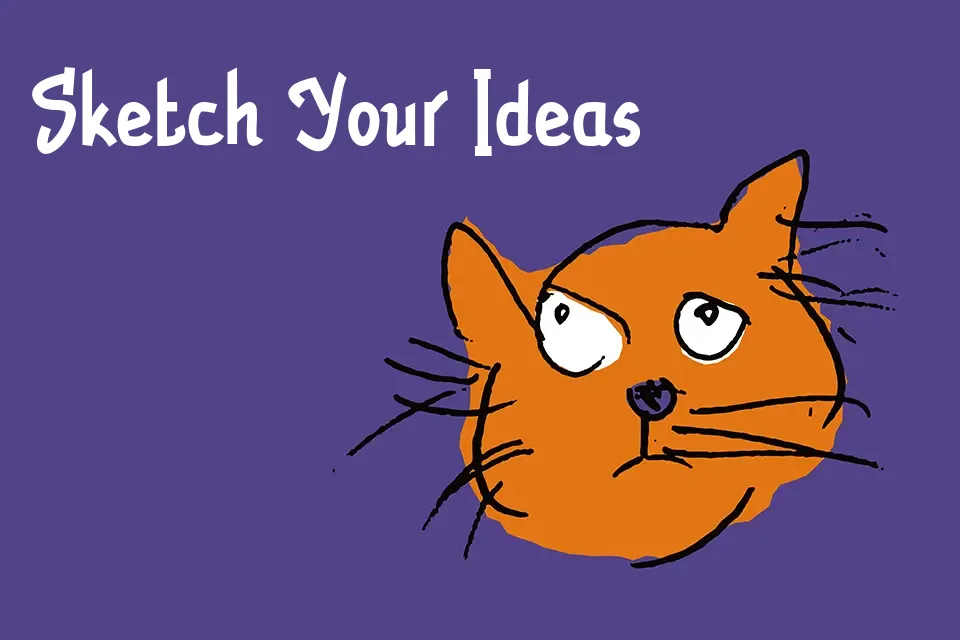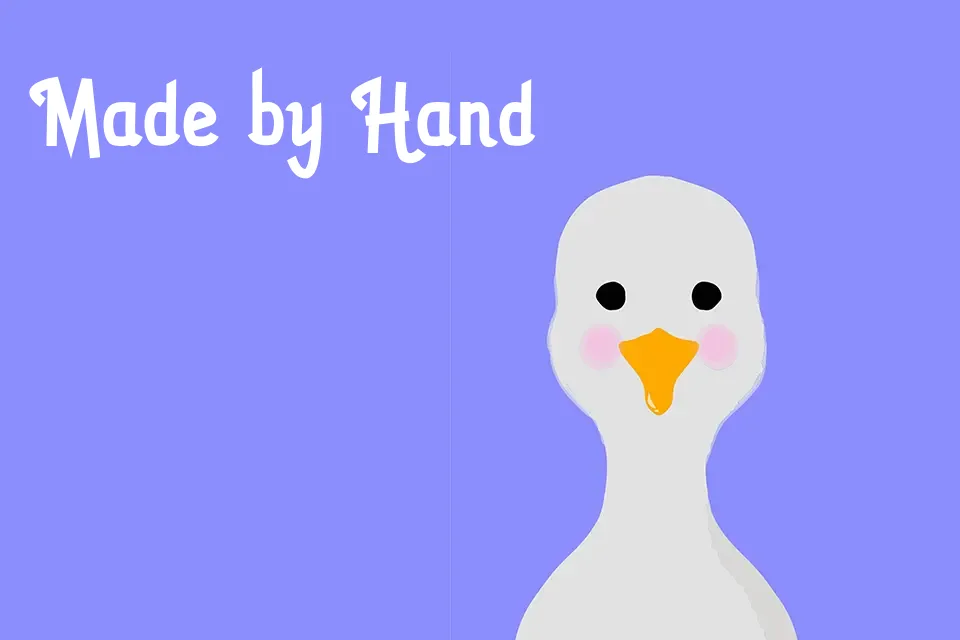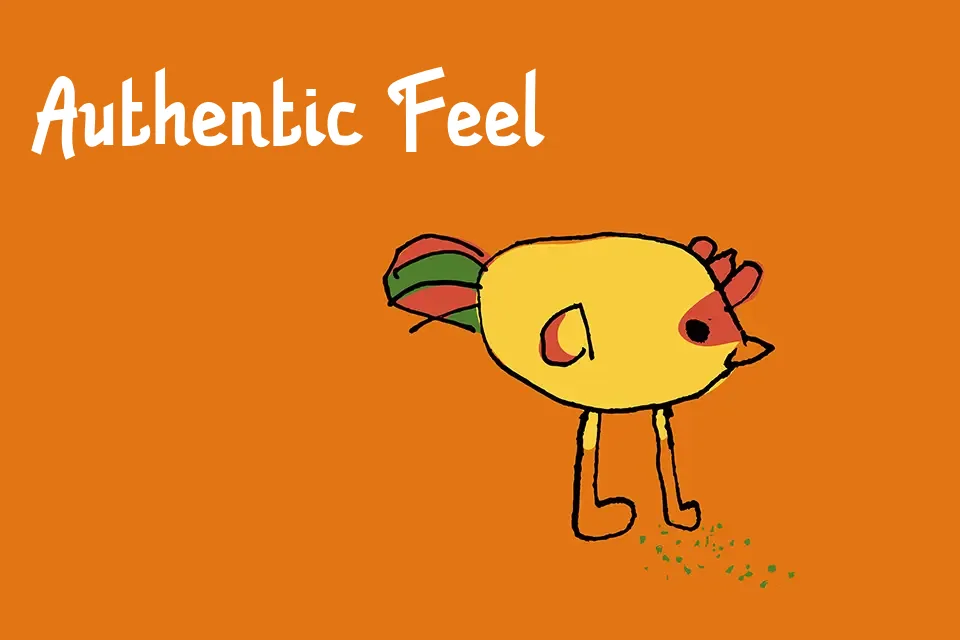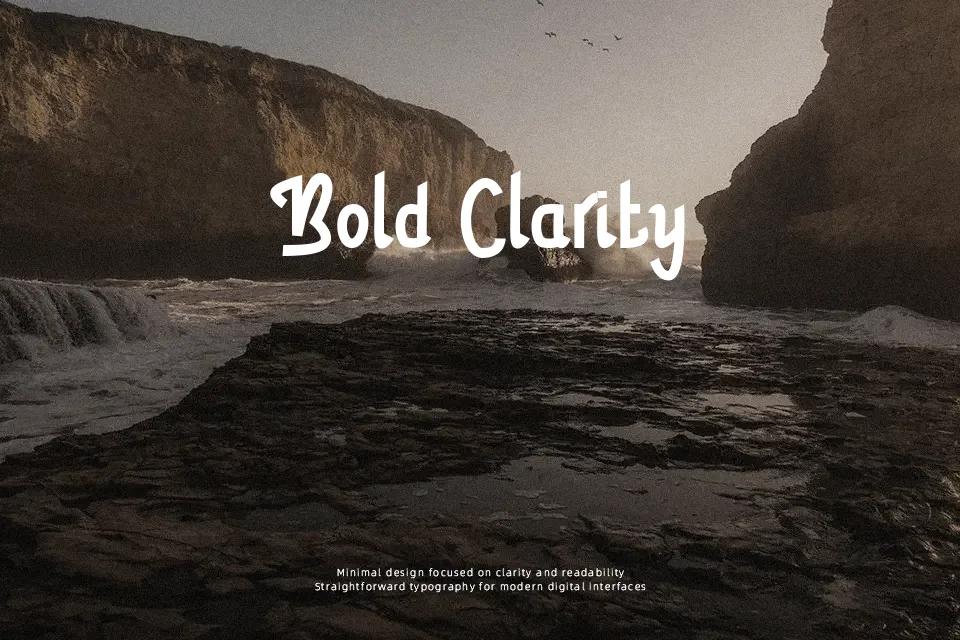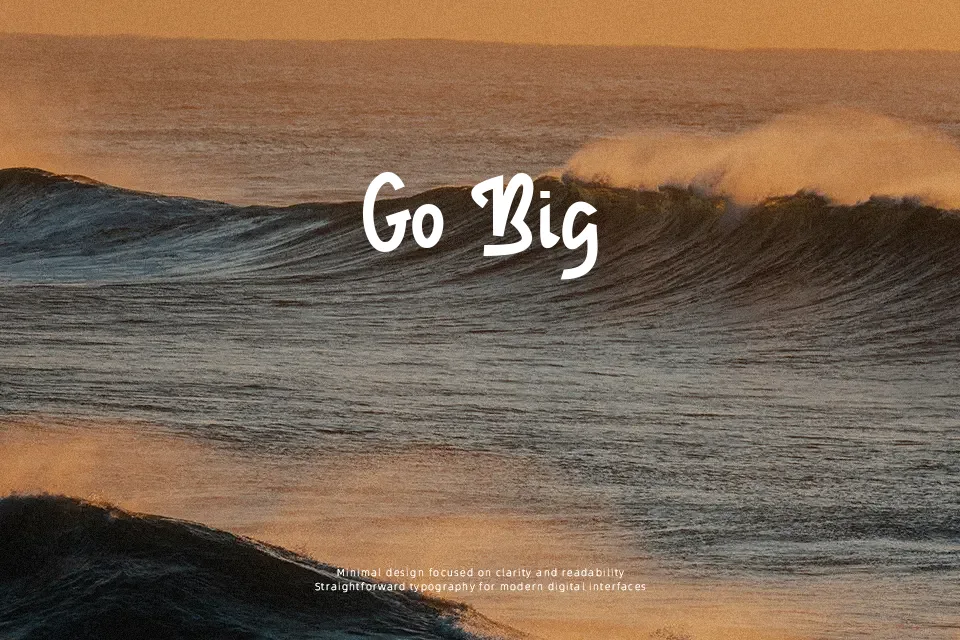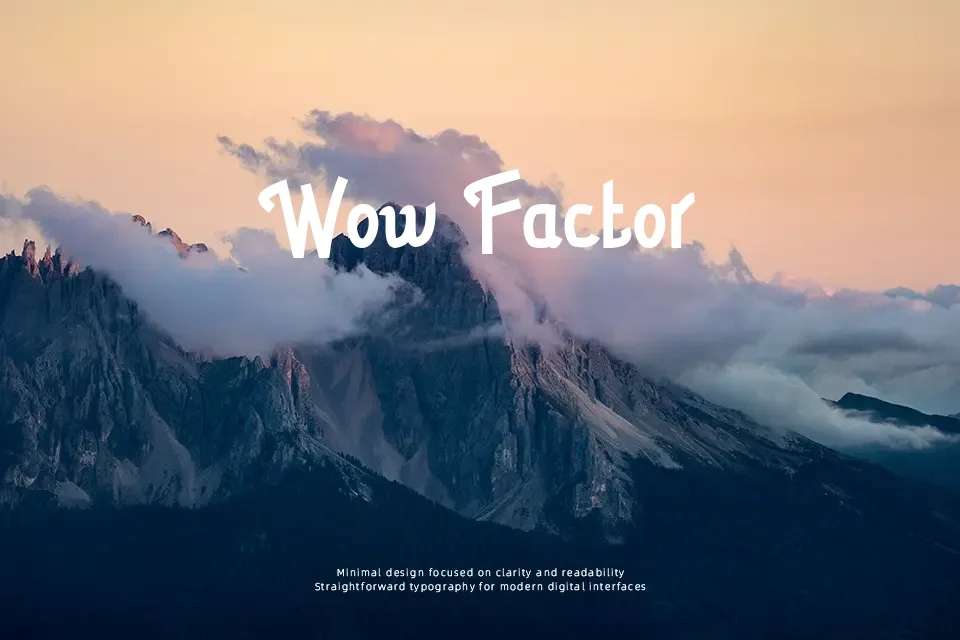
Raspberry Cake Font
The quirky strokes of Raspberry Cake Font bring a playful energy to casual design projects. This hand-drawn display typeface features a consistent monoline structure with relaxed proportions and an organic, whimsical rhythm. The open spacing helps maintain clarity in larger headlines, ensuring the letterforms remain easy to read when used for restaurant menus, vibrant packaging, or cheerful branding. The bold, rounded terminals give the design a friendly and approachable feel. However, the unconventional letter shapes reduce continuous reading comfort, making this typeface less suitable for long paragraphs or dense editorial layouts. The energetic forms stand out best in short, impactful applications.
restaurant signage, vibrant packaging, cheerful branding
long paragraph text, dense editorial layouts, corporate reports
Perfect for branding, kids, and logo, with a creative and display style.